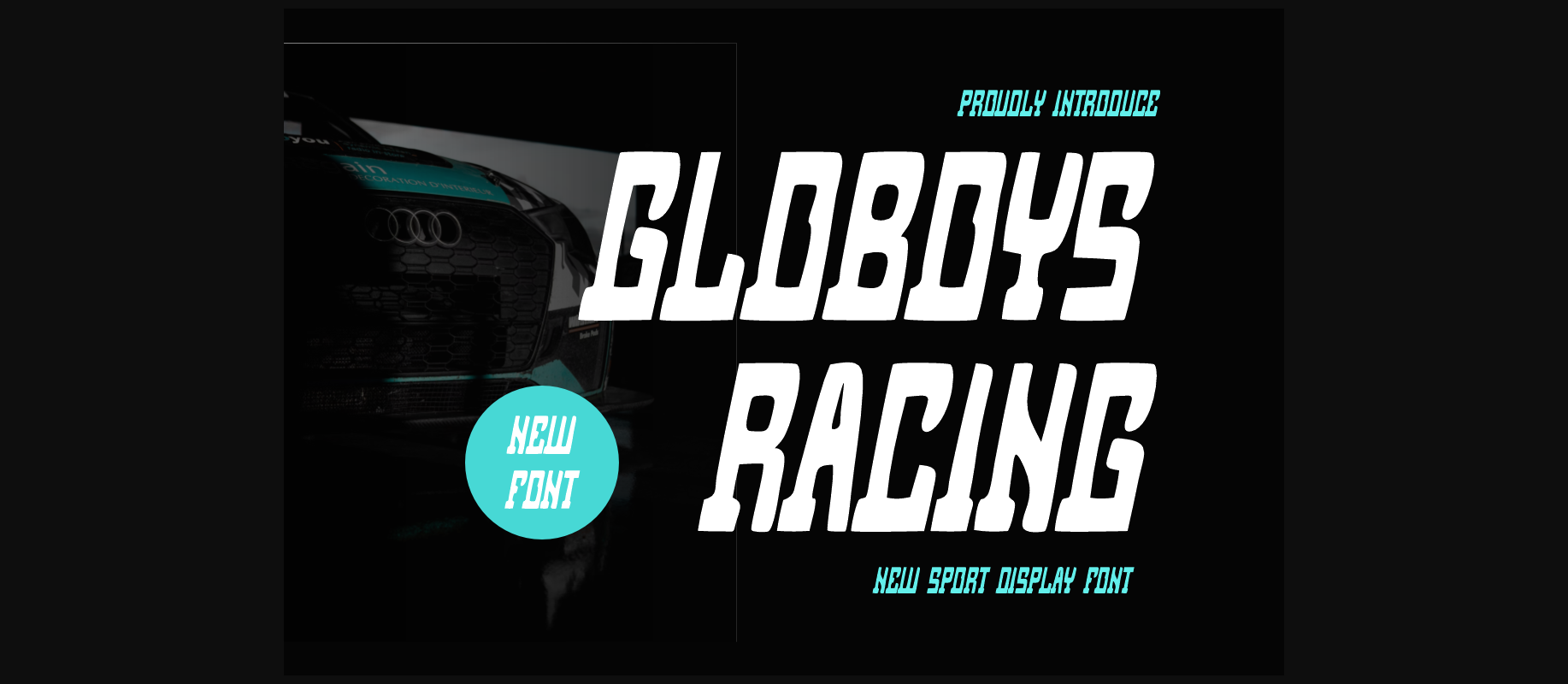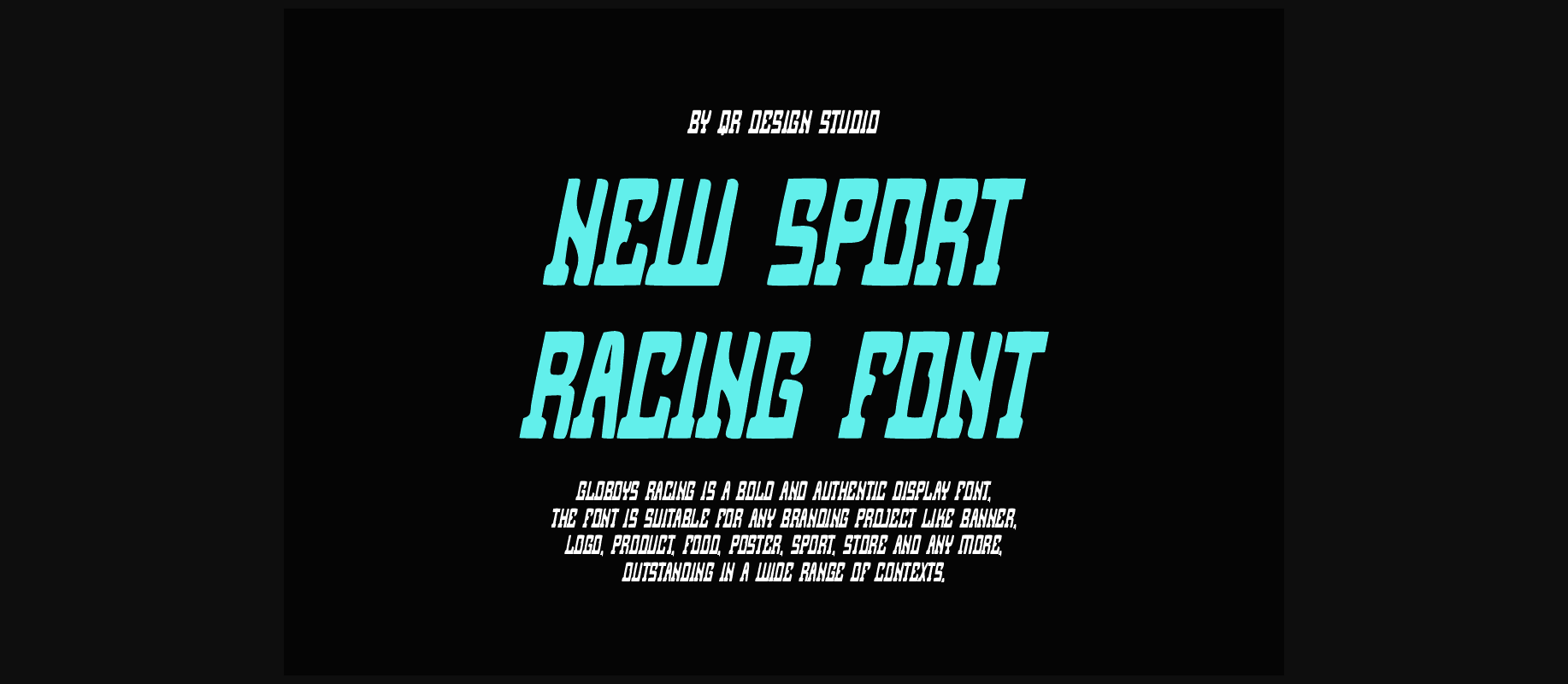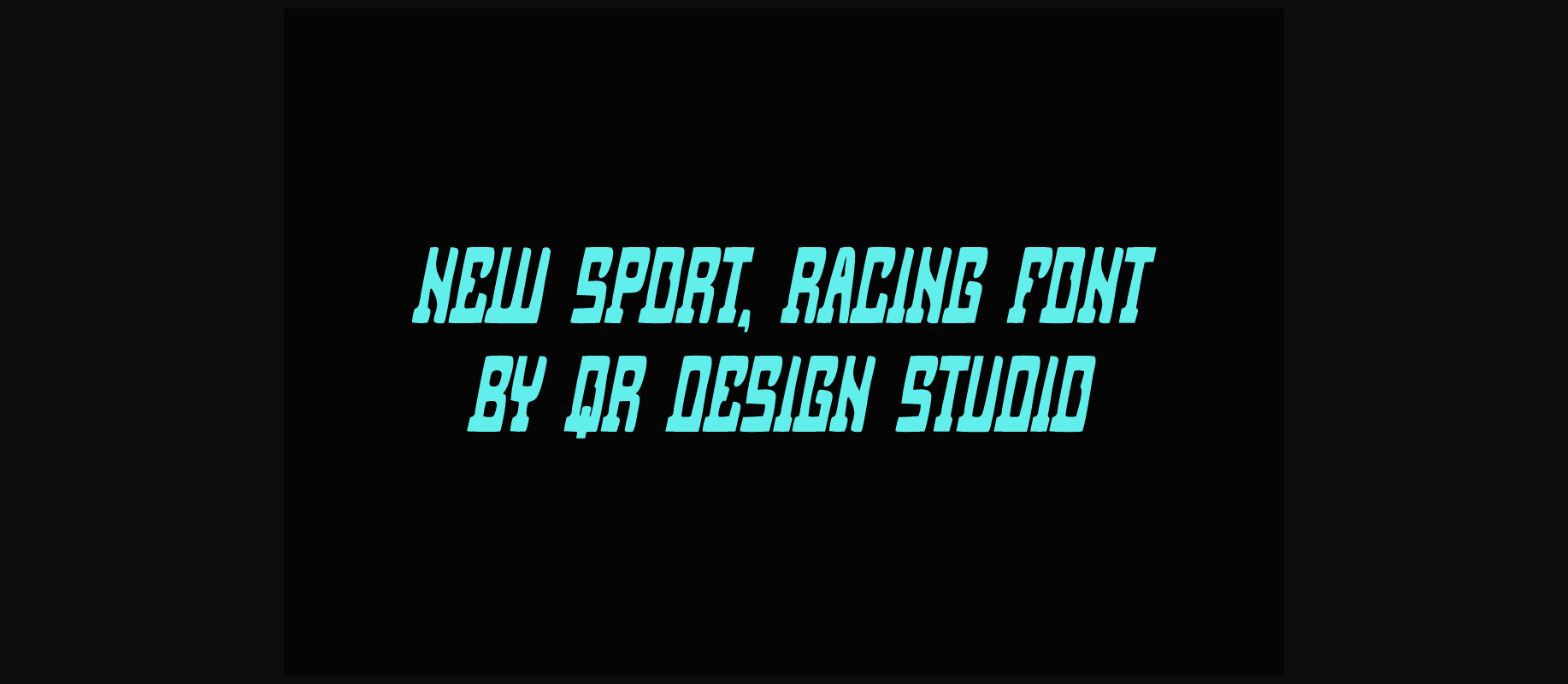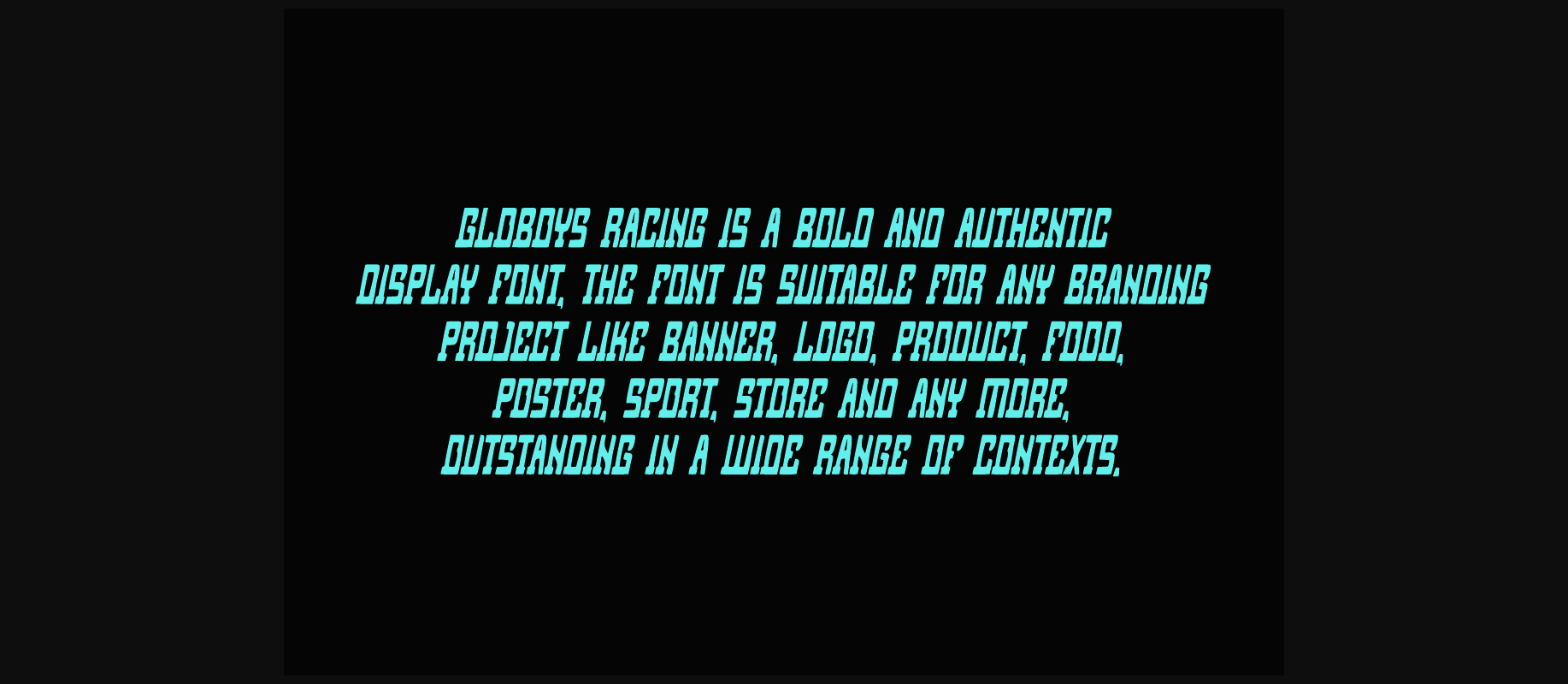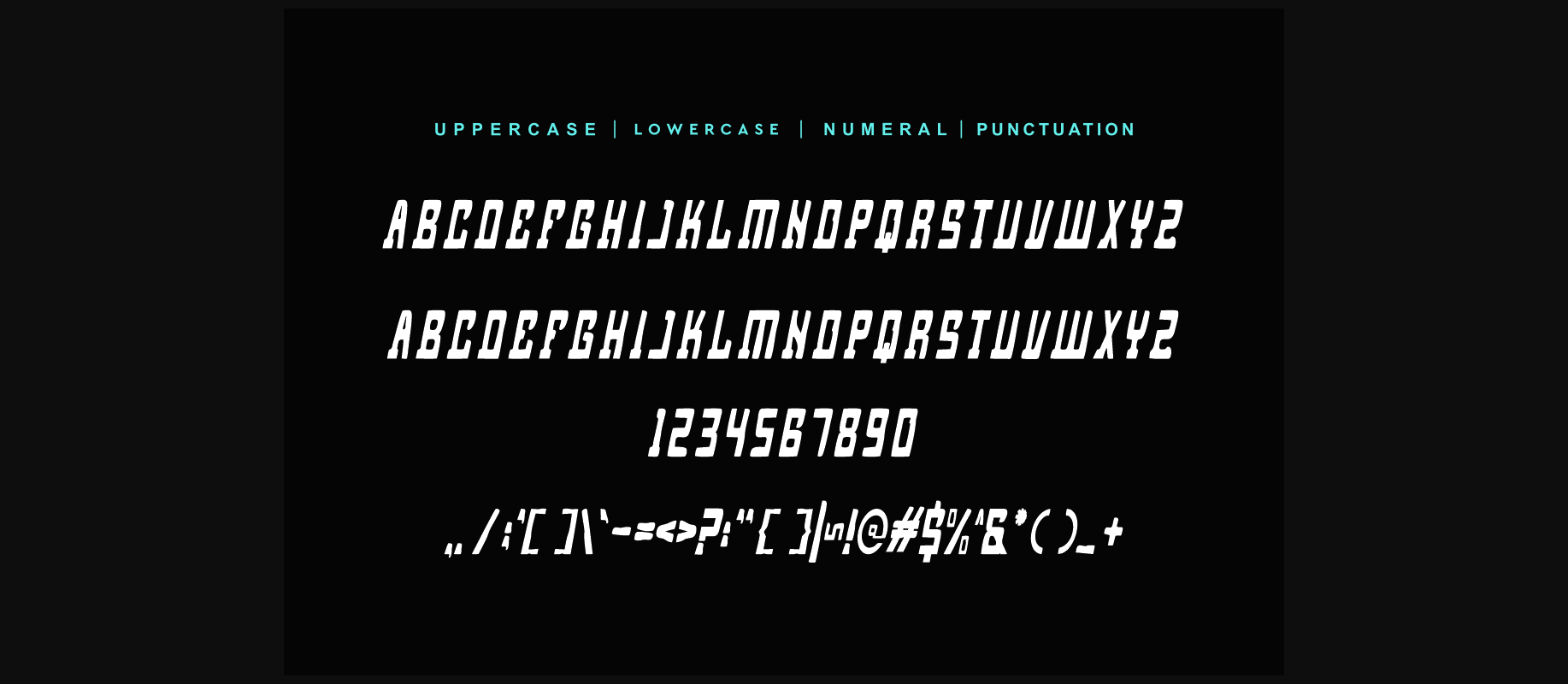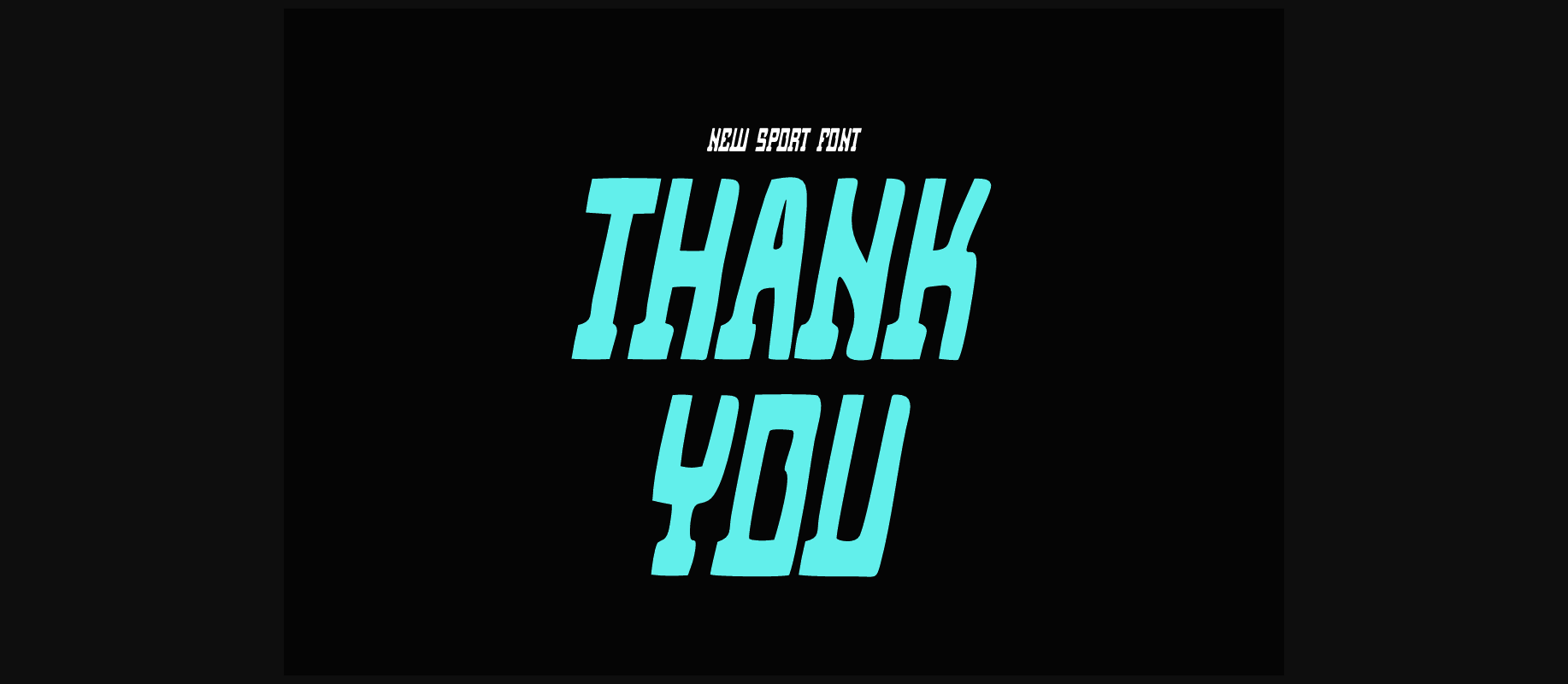
Globoys Racing Font
About Globoys Racing Font
Globoys Racing is a unique and interesting decorative sans serif font. A little bit quirky, this font looks incredibly adept on a wide variety of contexts!